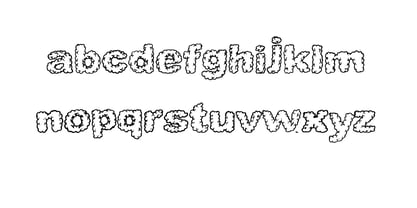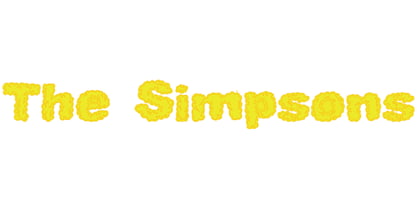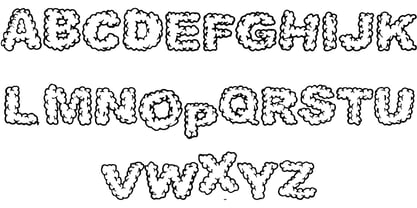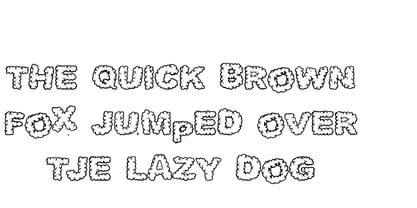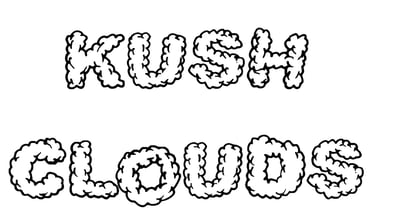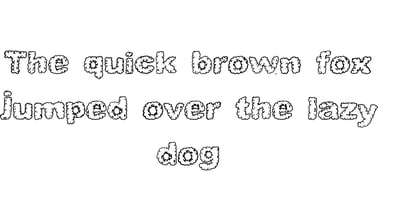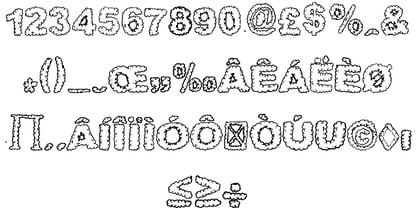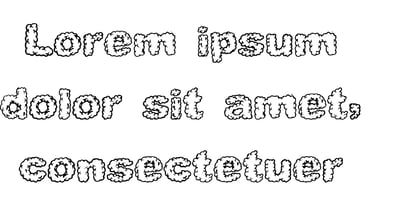
Kushclouds
von Jointype
Die Schriftfamilie Kushclouds wurde von Jeremy Gill-Praba entworfen und von Jointype veröffentlicht. Kushclouds enthält 1 Stile. Mehr über diese Familie
This font drifts like clouds and hits smooth like kush. Soft curves and rounded edges give it an airy, floating feel, while its bold weight keeps it grounded and confident. Each letter feels slow, hazy, and effortless—designed to move at its own pace. The style blends calm elevation with street-wise warmth, making it perfect for brands that live in the clouds but stay rooted in flavor, culture, and chill energy. Smooth, thick, and atmospheric, this font turns every word into a mellow statement.